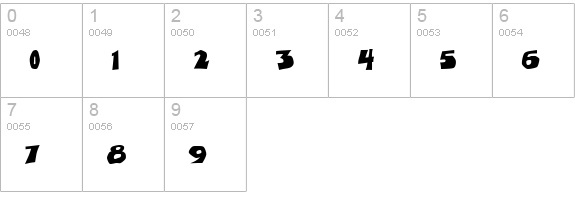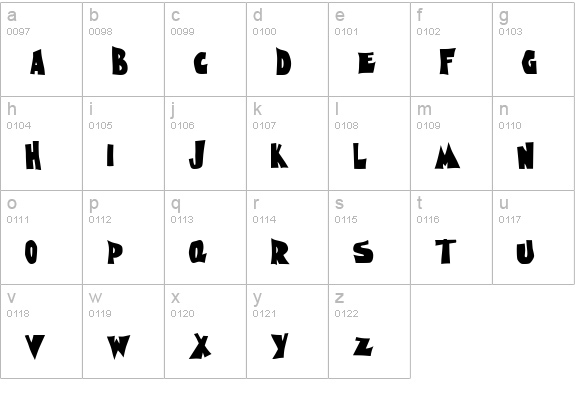
Nightmare AOE Font Details
Nightmare AOE font is a hauntingly beautiful typeface that exudes an air of mystery and intrigue. Its sharp, jagged edges and eerie curves evoke a sense of foreboding, making it perfect for projects that require a touch of darkness and drama. The font's unique design sets it apart from traditional typefaces, making it a standout choice for anyone looking to make a bold statement with their typography. What's even better is that Nightmare AOE font is available for free download at FontsMarket.com. This means you can easily add this striking font to your collection without having to spend a dime. Whether you're working on a spooky Halloween design, a gothic-inspired project, or simply want to add a touch of edge to your work, Nightmare AOE font is a versatile and eye-catching choice that won't cost you a thing. Download it today and unleash the nightmares in your designs.